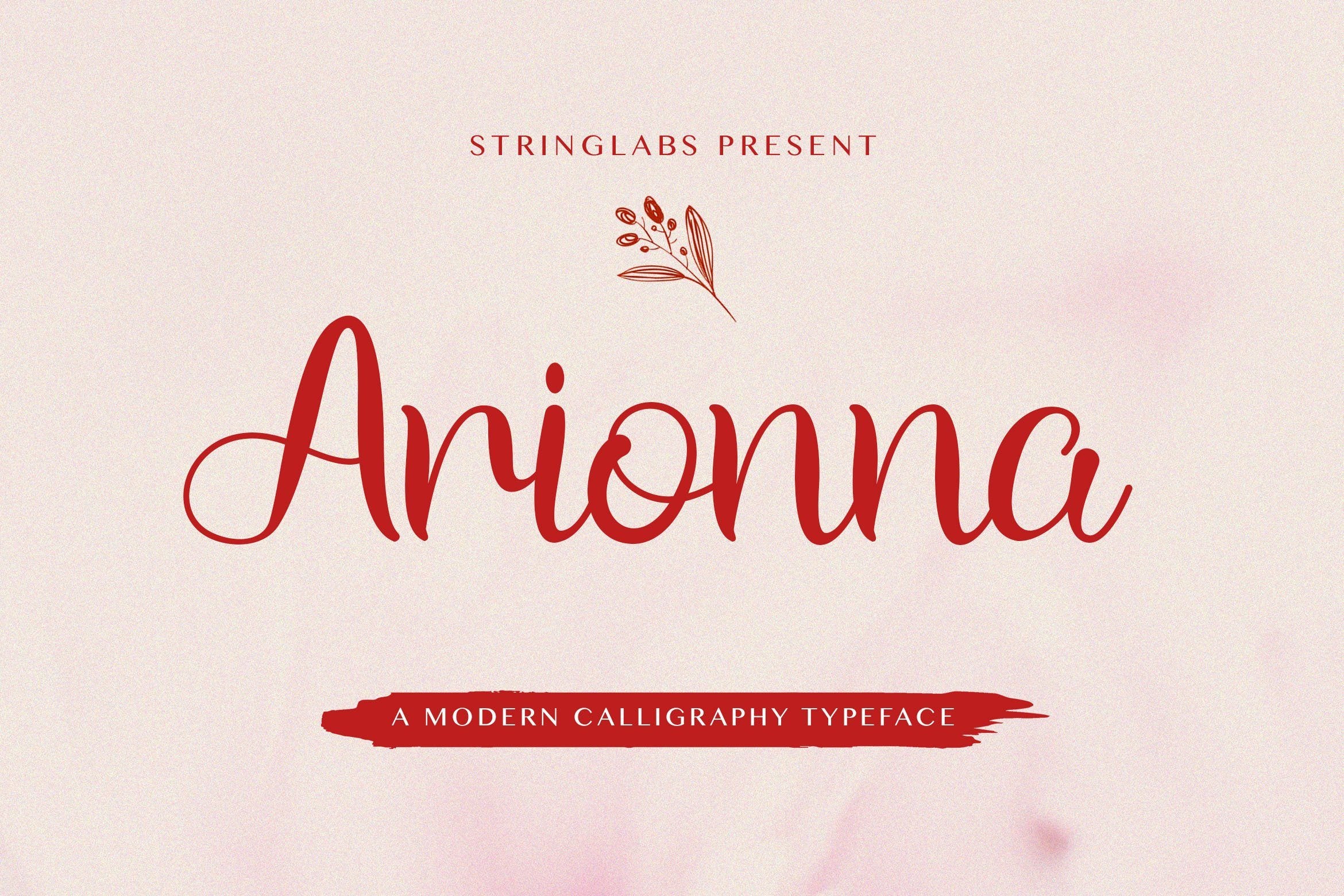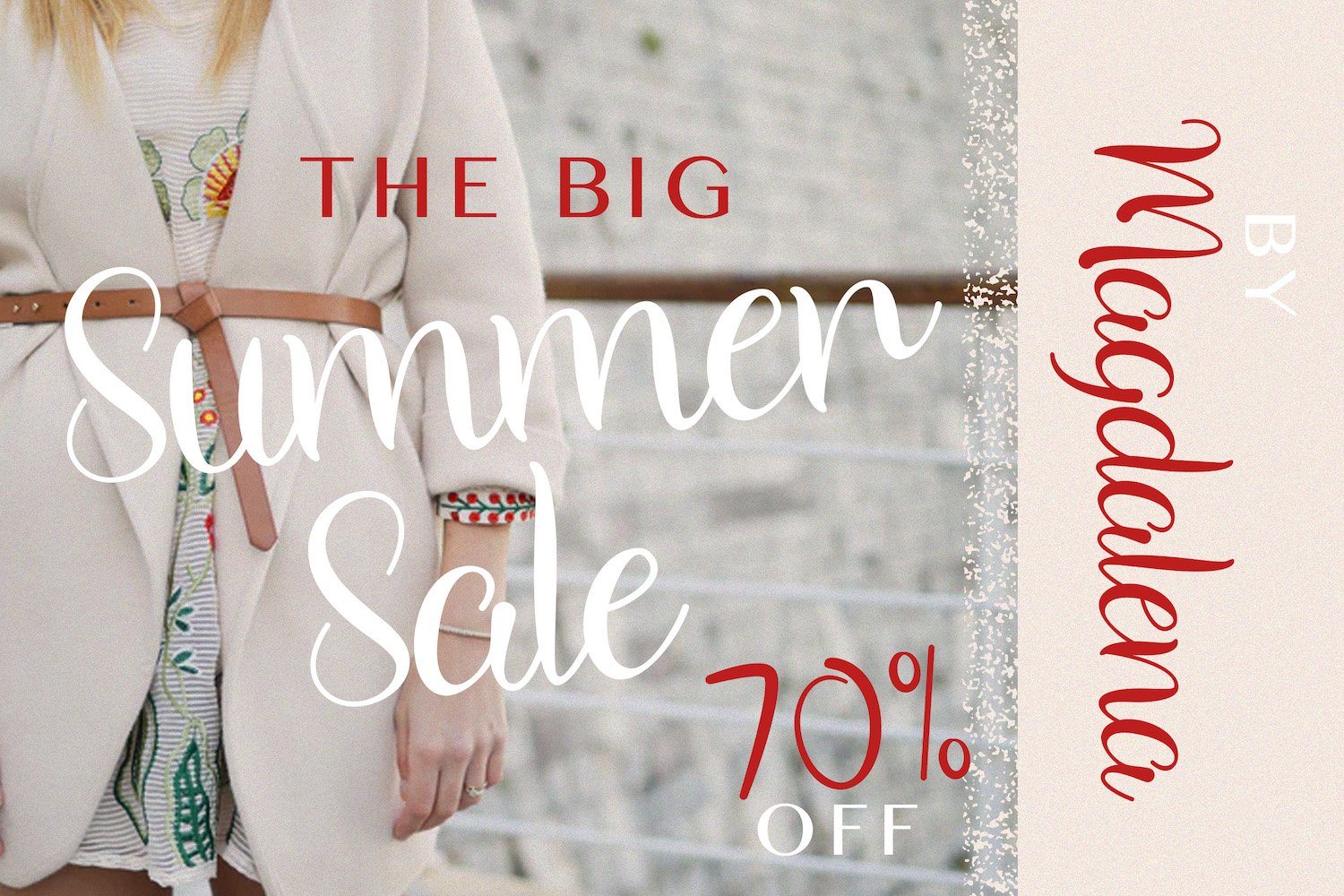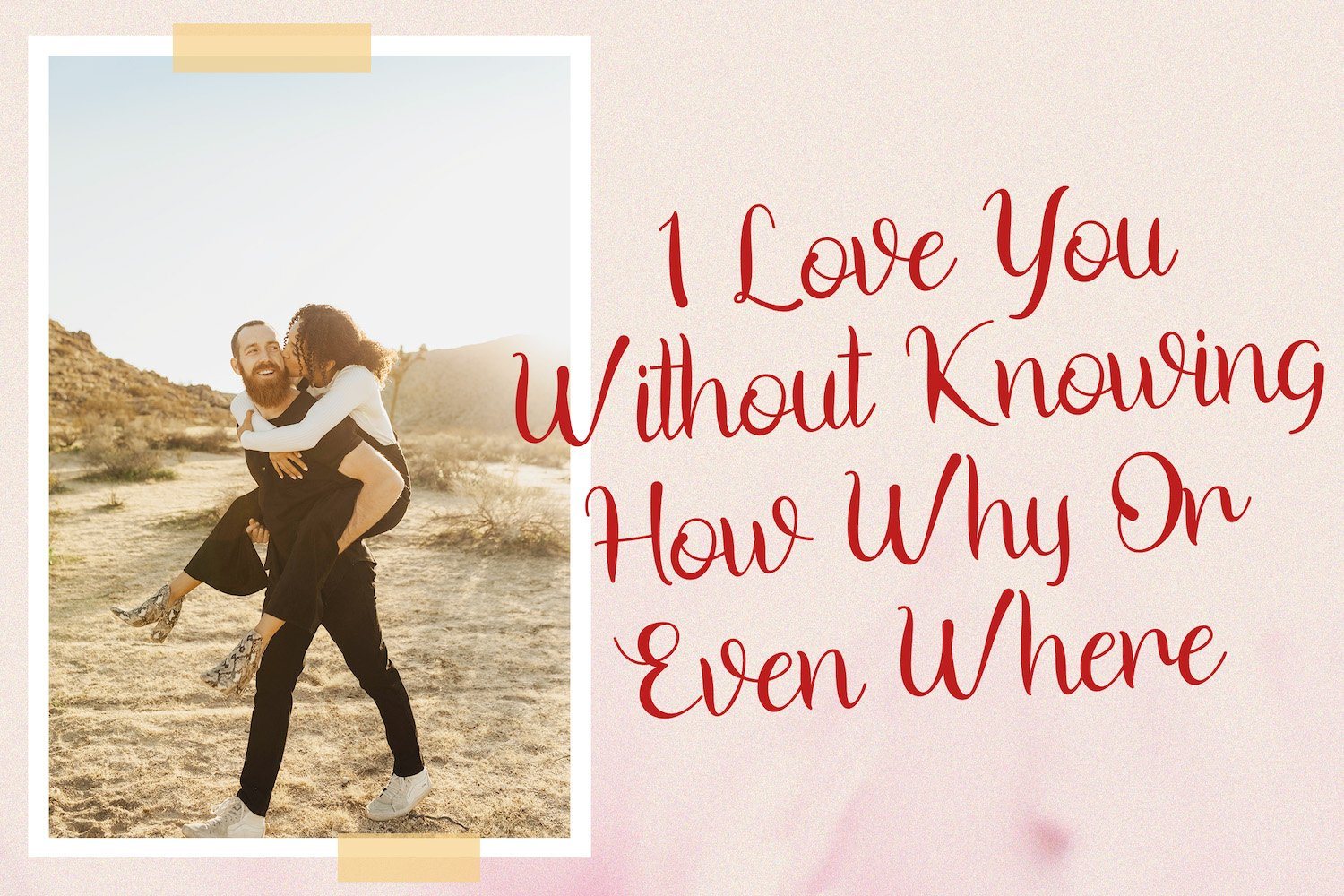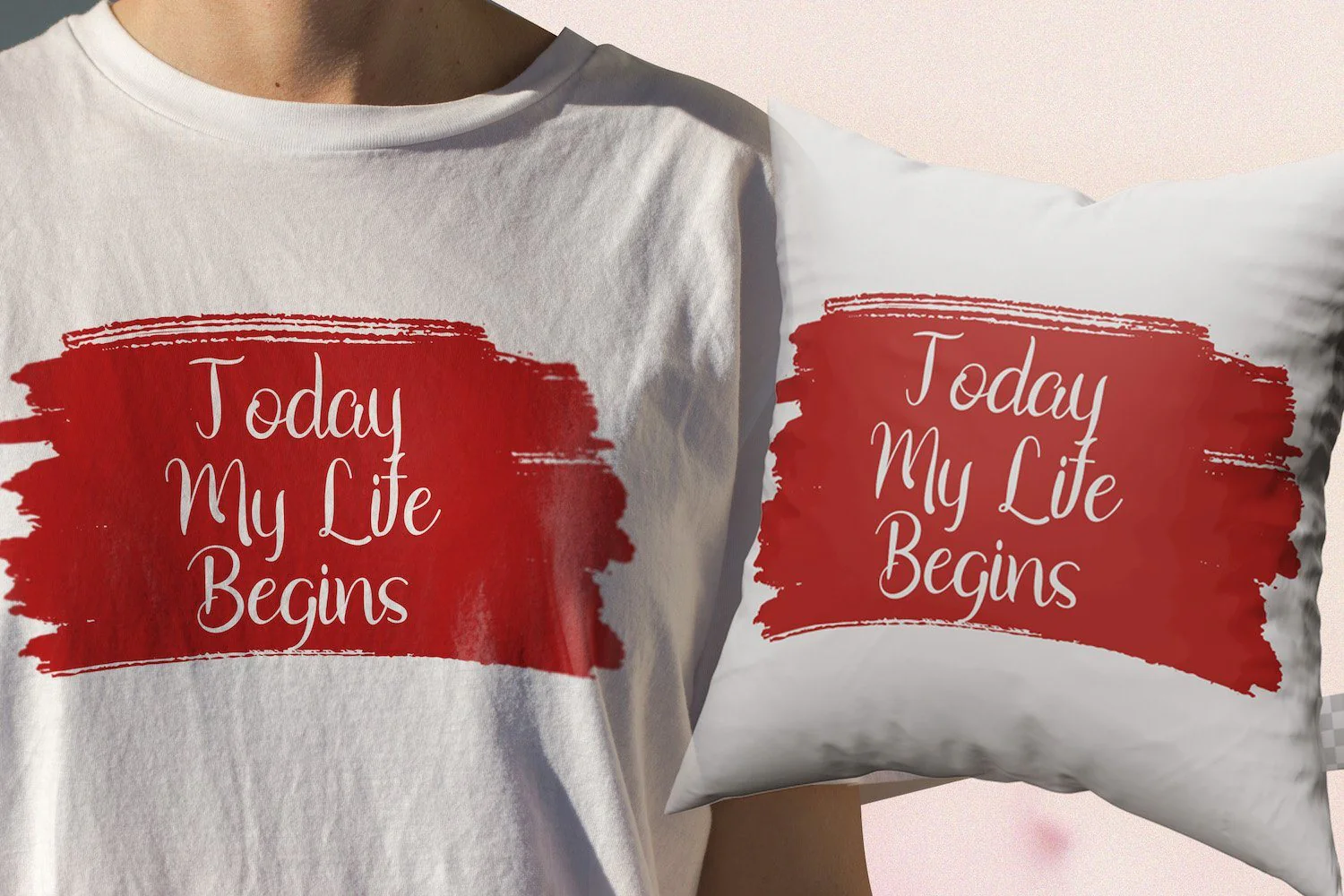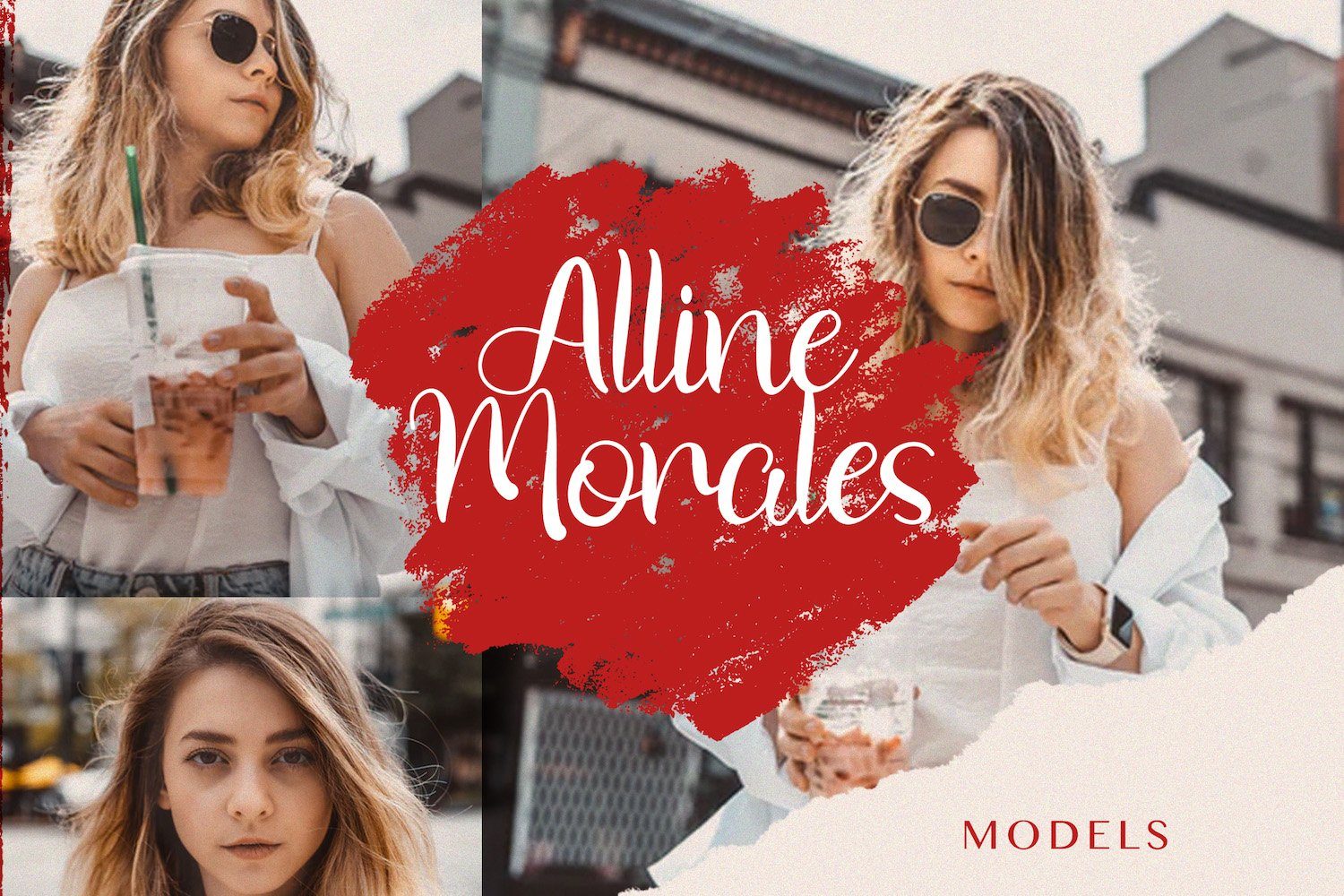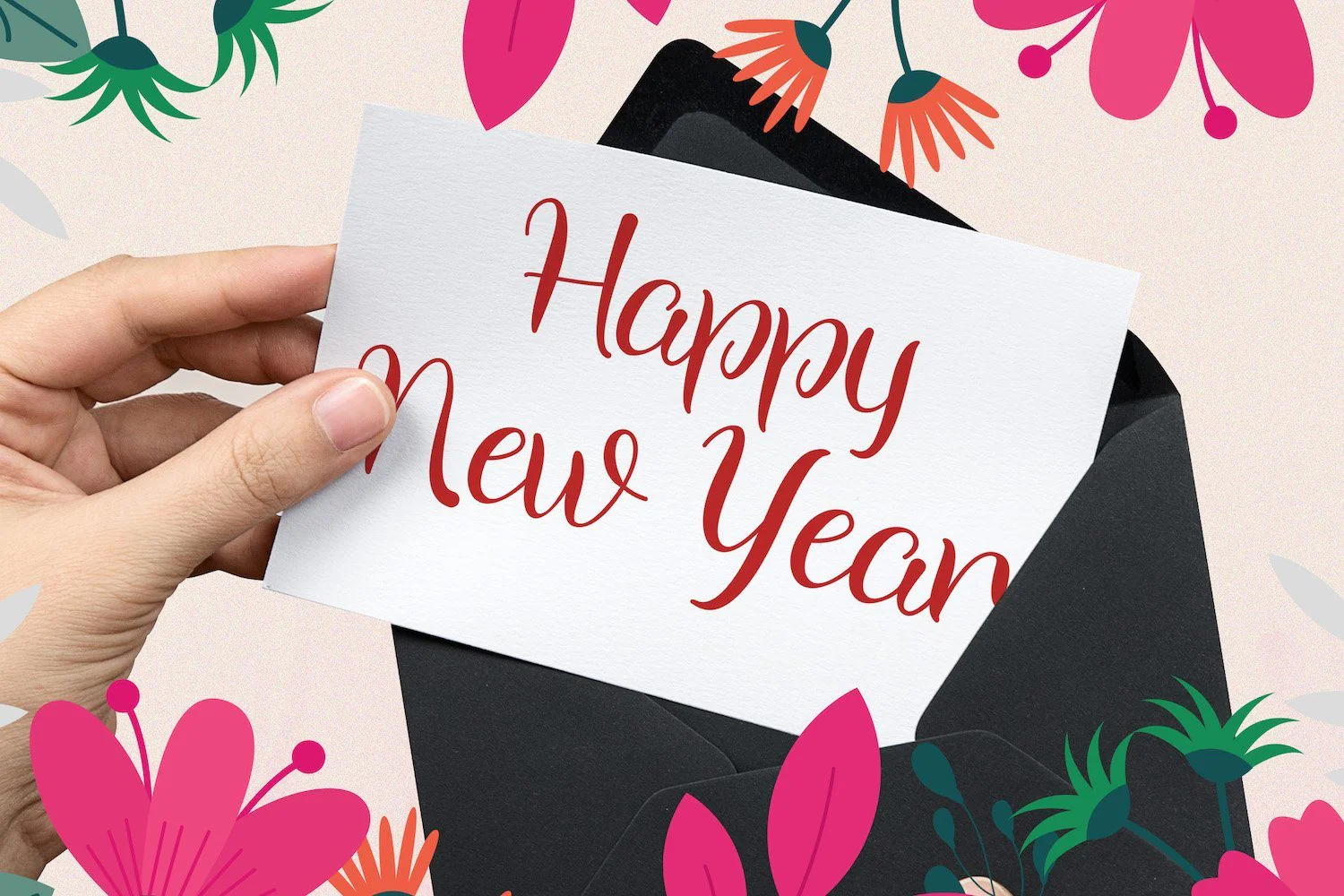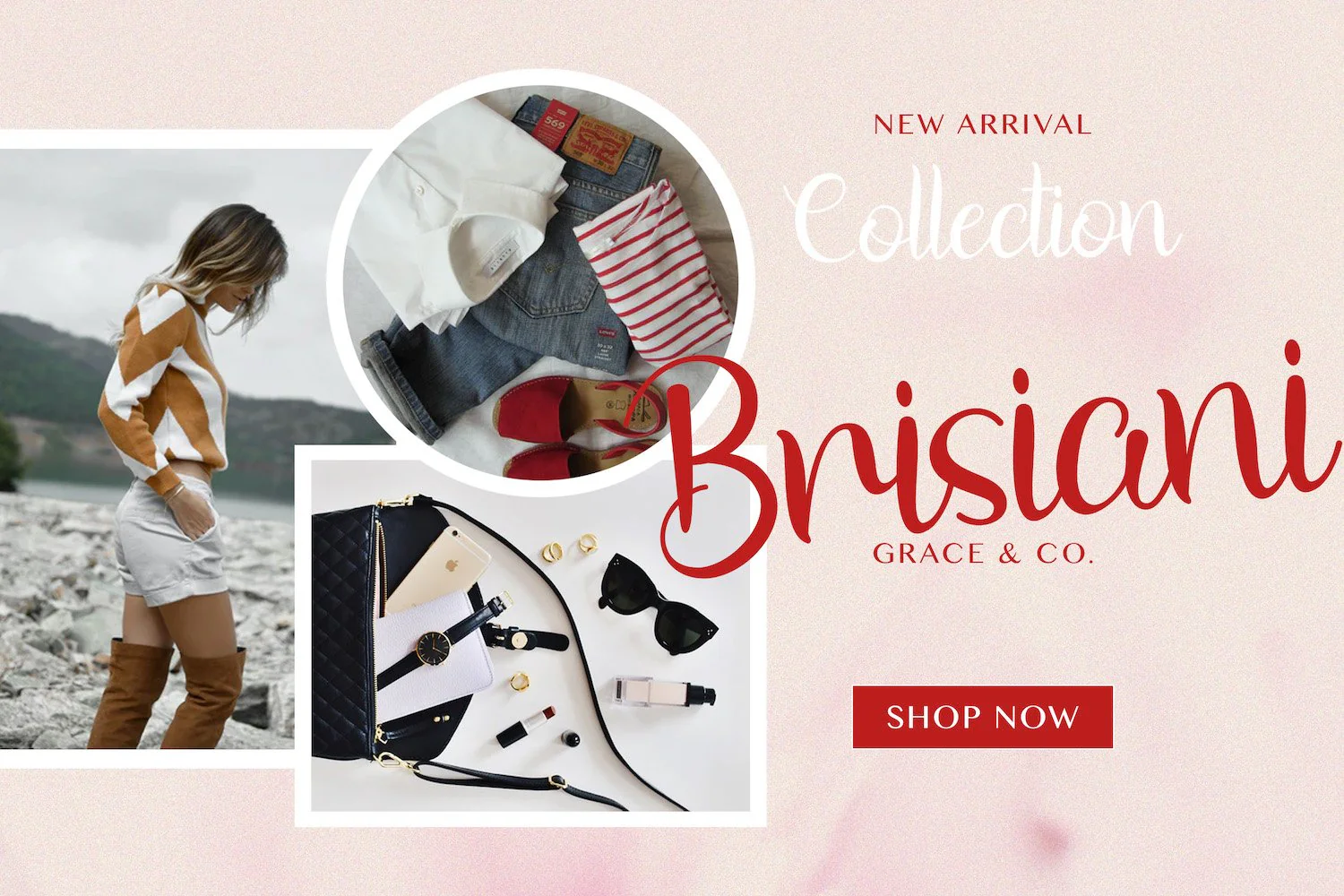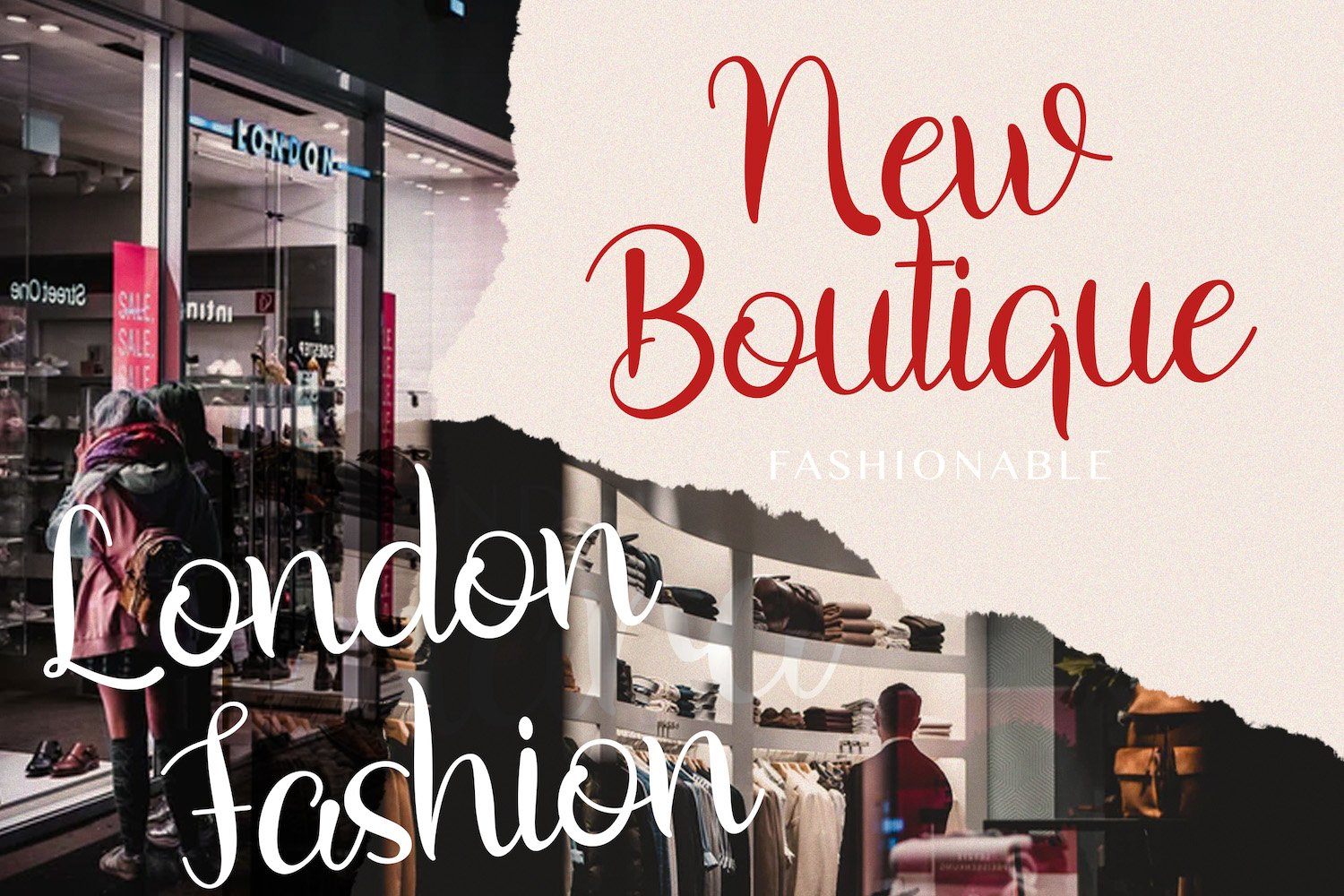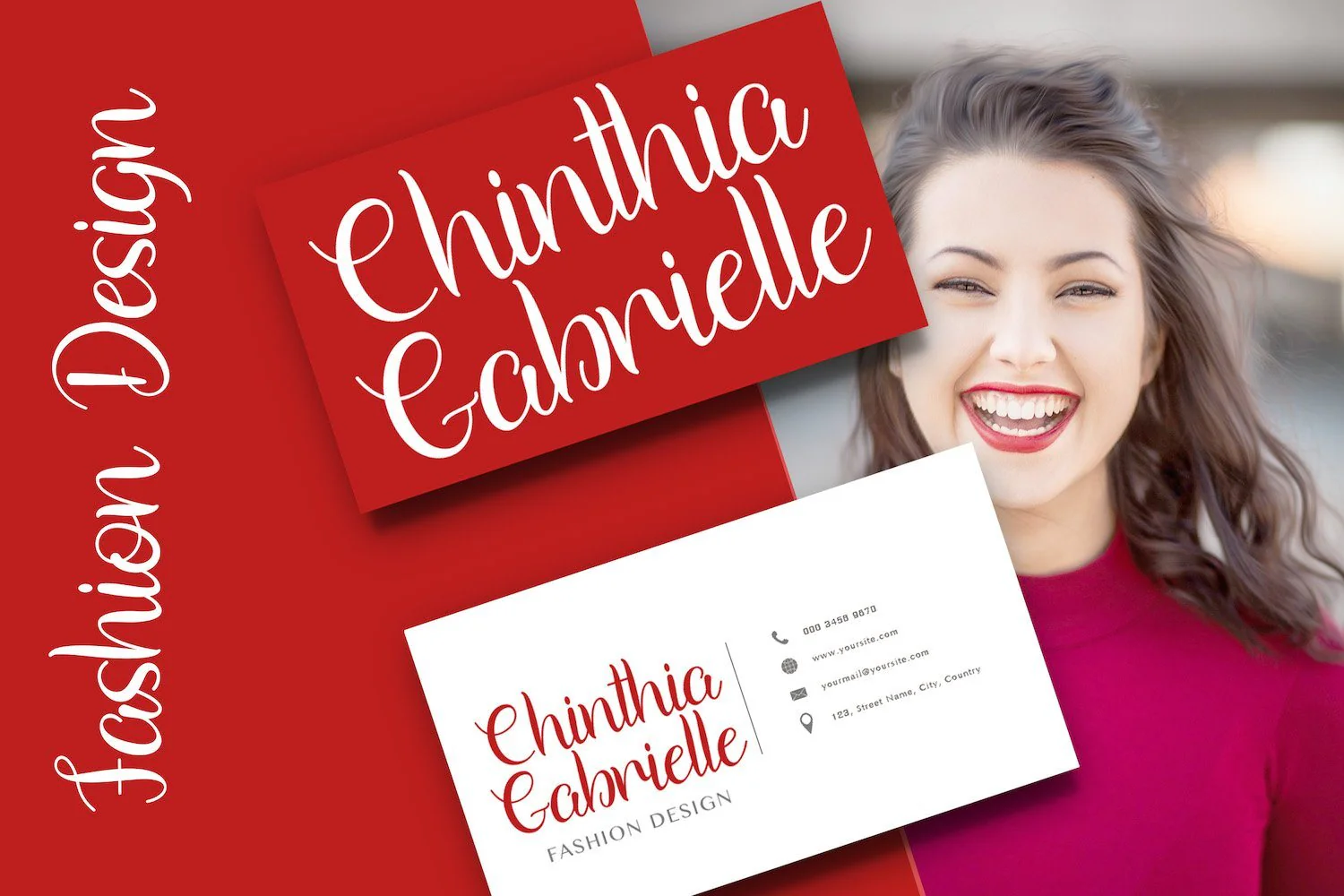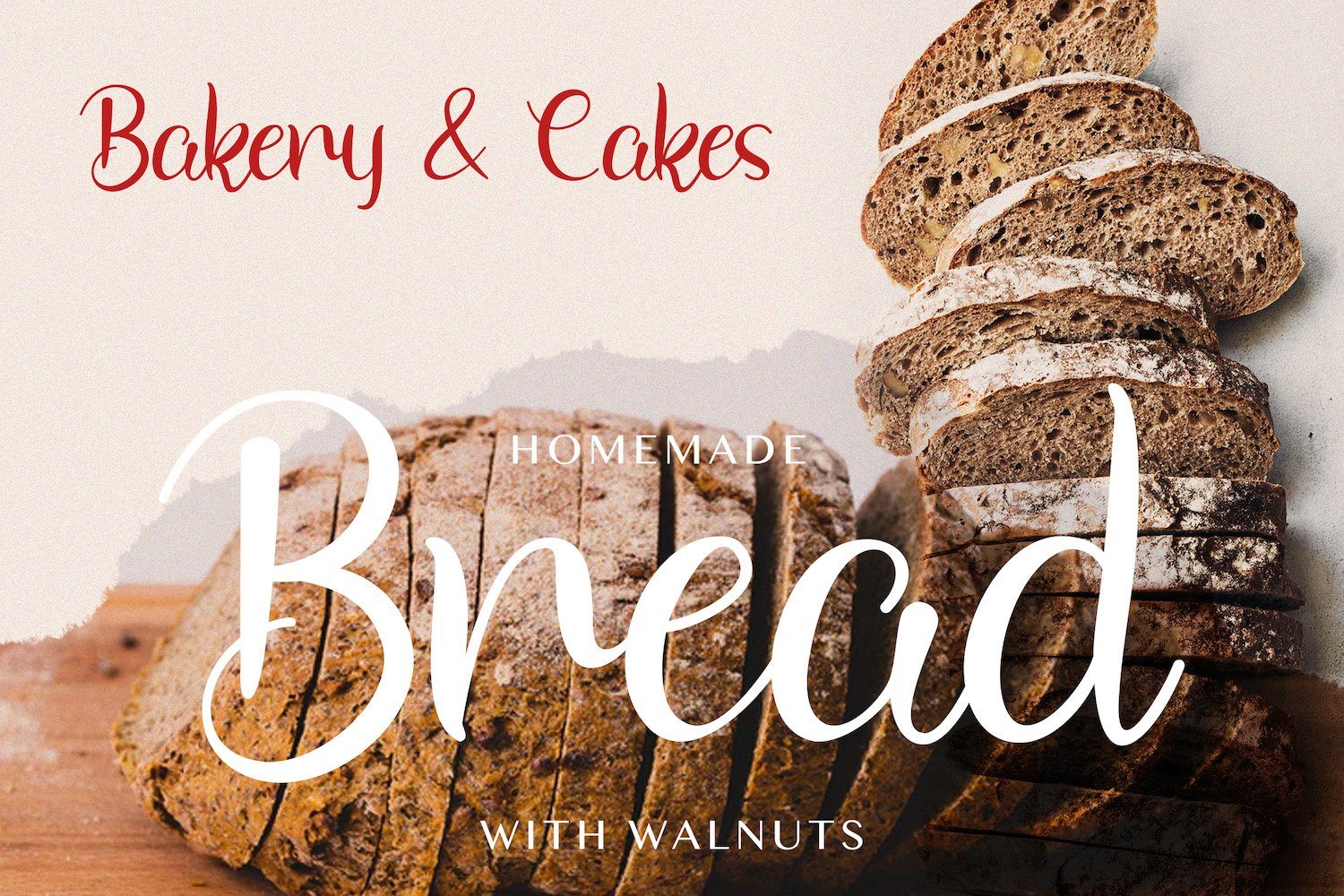
Arionna - Modern Calligraphy Font
Introducing Arionna - Modern Calligraphy Font
Arionna is a Script Font with Calligraphy Style. The Arionna font made with modern digital brush pen strokes that making this font look beautiful. This font is perfect for fashion brand, wedding invitation, business card, logo brand, signature, and then calligraphy.
This Font contains Elegant, Creative, Luxury and has a Unique Concept.
Introducing Arionna - Modern Calligraphy Font
Arionna is a Script Font with Calligraphy Style. The Arionna font made with modern digital brush pen strokes that making this font look beautiful. This font is perfect for fashion brand, wedding invitation, business card, logo brand, signature, and then calligraphy.
This Font contains Elegant, Creative, Luxury and has a Unique Concept.